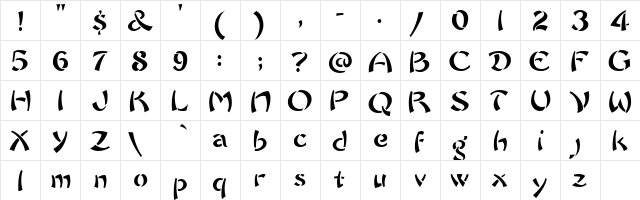
Brocken angle Regular
Brocken angle is a composed and adaptable typeface that performs quietly and consistently across a wide range of design contexts.